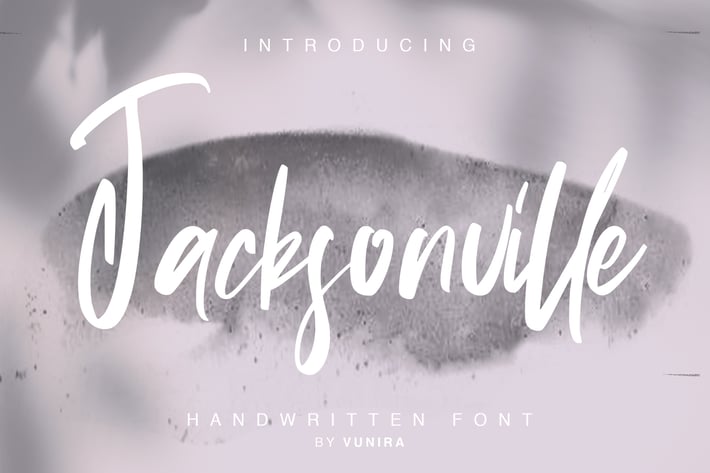
Jacksonville | Handwritten Font
Jacksonville | Handwritten Font with a calligraphy style, So beautiful on invitation like greeting cards, branding materials, business cards, quotes, posters, and more!